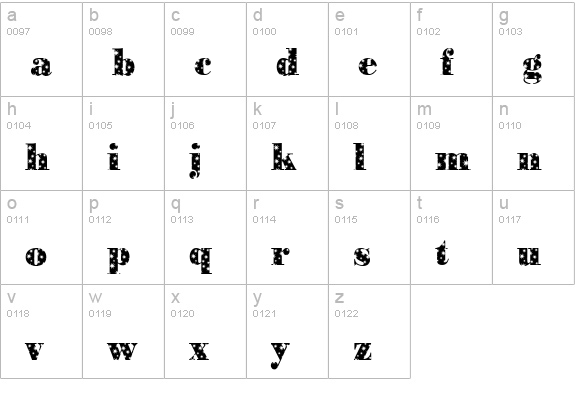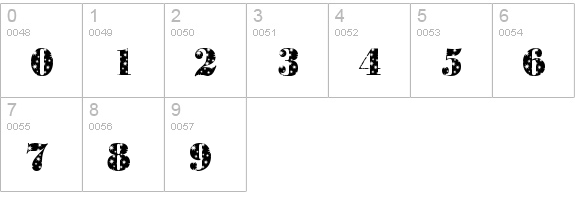
BodoniStars-Regular Font Details
BodoniStars-Regular is the standard, neutral variant in the BodoniStars typeface family \xE2\x80\x94 well suited to general body text, paragraphs, and standard typographic work.
BodoniStars-Regular is a stunning and elegant typeface that exudes sophistication and charm. Its sleek lines and timeless appeal make it perfect for a wide range of design projects, from elegant wedding invitations to high-end branding materials. This versatile font is sure to add a touch of class to any project. What sets BodoniStars-Regular apart is its unique star-shaped accents that give it a touch of whimsy and playfulness. These decorative elements add a delightful twist to the classic Bodoni style, making it a truly standout font choice. Best of all, BodoniStars-Regular is completely free to download at FontsMarket.com. Whether you're a seasoned designer looking to add a fresh new font to your collection or a beginner just starting out, this font is a must-have for anyone looking to elevate their designs. Don't miss out on the opportunity to add BodoniStars-Regular to your font library today!